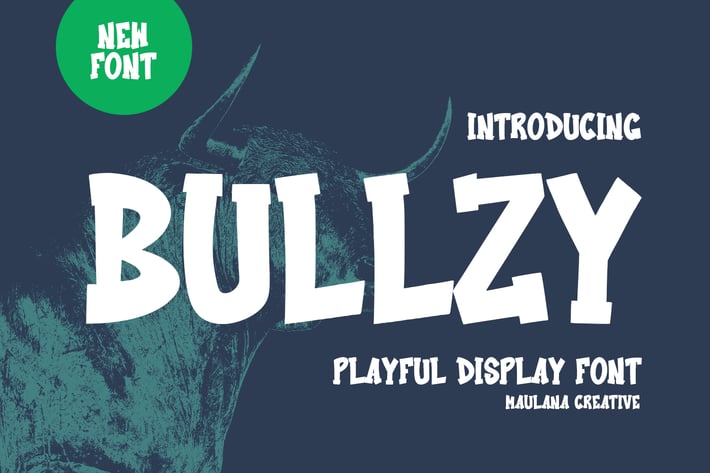
Bullzy Playful Display Font
Bullzy a playful display font. Semi Bold stroke, fun character with a bit of ligatures and stylistic. To give you an extra creative work. Bullzy playful display font support multilingual more than 100+ language. This font is good for logo design, Social media, Movie Titles, Books Titles, a short text even a long text letter and good for your secondary text font with script or serif. Make a stunning work with Bullzy playful display font.